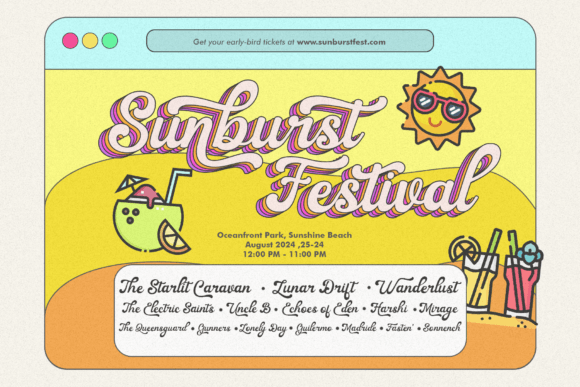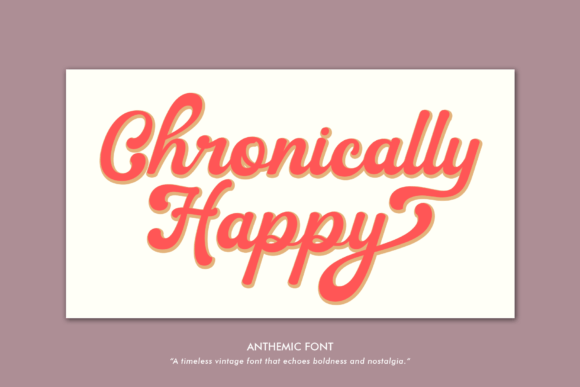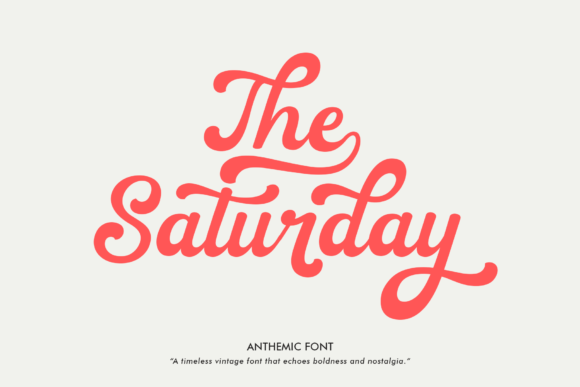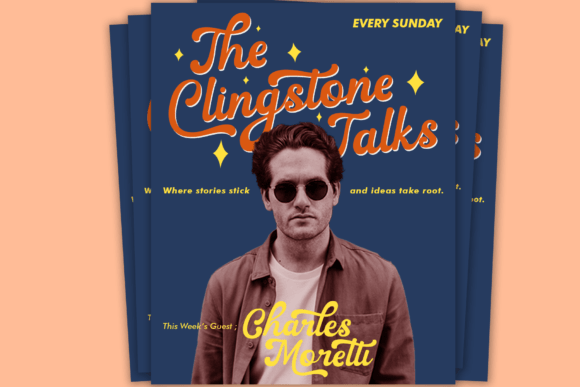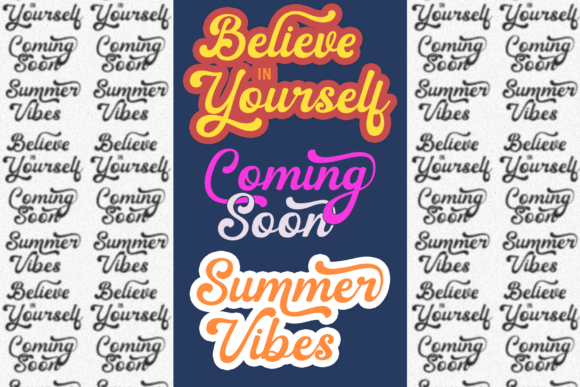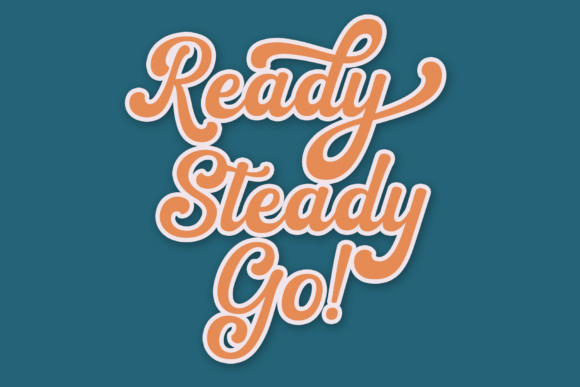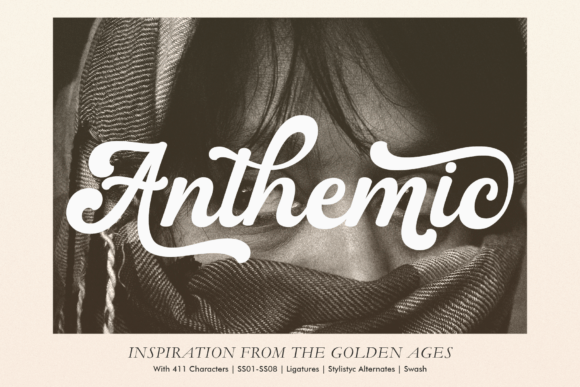
Discover the Timeless Charm of Anthemic Font
I’ll never forget the design project that led me to discover Anthemic Font. I was working on a vintage-inspired logo for a local baseball team, and I was struggling to find the perfect font that captured the essence of classic Americana. The client wanted something that exuded nostalgia, energy, and a touch of playfulness. After hours of scouring font libraries, I stumbled upon Anthemic Font, and it was love at first sight! ✨
A Personal Review of Anthemic Font
- ✅ Versatility: With 411 characters, Anthemic Font offers an incredible range of design possibilities.
- ✅ Retro Charm: The fluid curves and bold strokes evoke a sense of retro Americana, perfect for nostalgic designs.
- ✅ Customization: Features like ss01-ss08, stylistic alternates, ligatures, swashes, and PUA encoding make it easy to tailor the font to your project’s needs.
- ✅ Ease of Use: Anthemic Font is surprisingly easy to use, even for those who are new to working with OpenType features and glyphs.
While Anthemic Font is an exceptional typeface, there are a few minor quirks to be aware of: 🤔
- ⚠️ Learning Curve: Mastering the full range of OpenType features and glyphs may take some time, especially for those new to font design.
- ⚠️ Character Limitations: Some users may find that certain characters or glyphs are not as extensive as they’d like, but overall, the font offers an impressive range of options.
The Backstory Behind Anthemic Font
Anthemic Font was inspired by the classic baseball fonts of the early 20th century, with a dash of modern flair. The designer, a self-proclaimed font enthusiast, aimed to create a typeface that captured the essence of American nostalgia while still feeling fresh and dynamic. The result is a font that’s both timeless and trendy, perfect for designers seeking a unique touch.
Q: Is Anthemic Font suitable for body text?
A: While Anthemic Font is primarily designed for display purposes, it can be used for body text in certain contexts. However, its bold strokes and fluid curves may not be ideal for extended blocks of text.